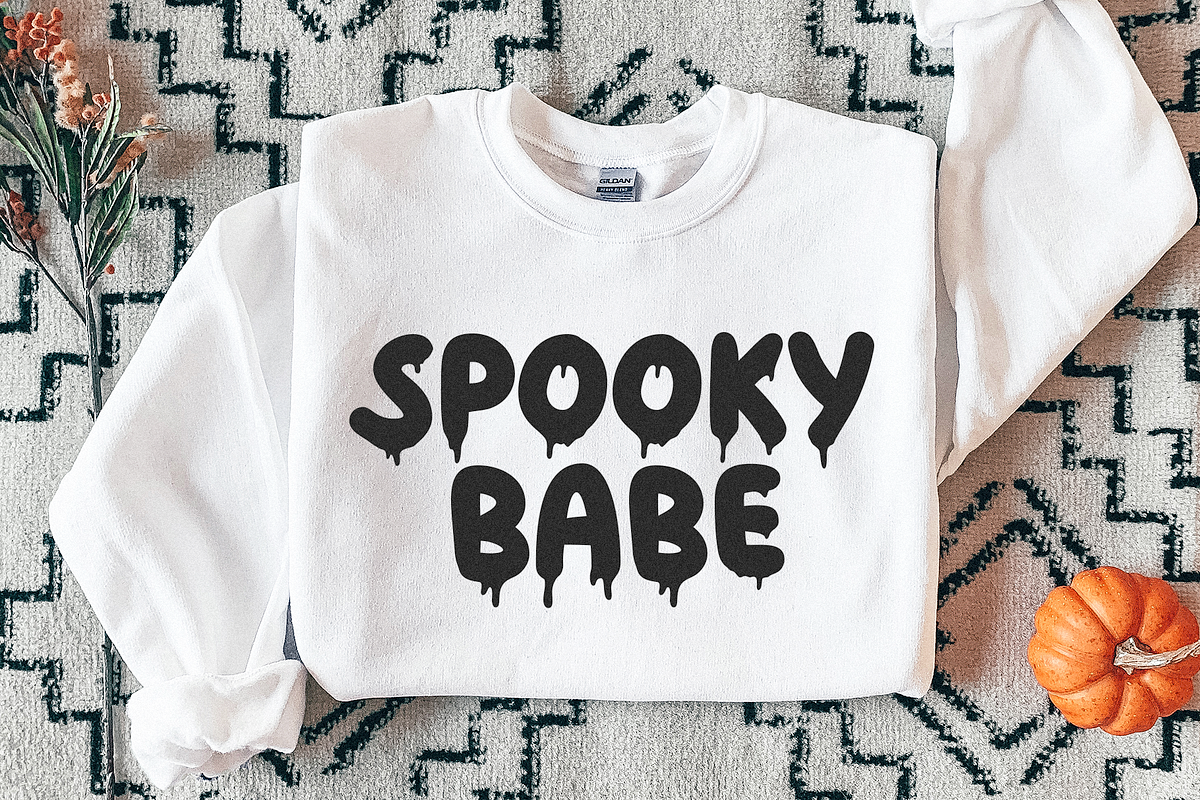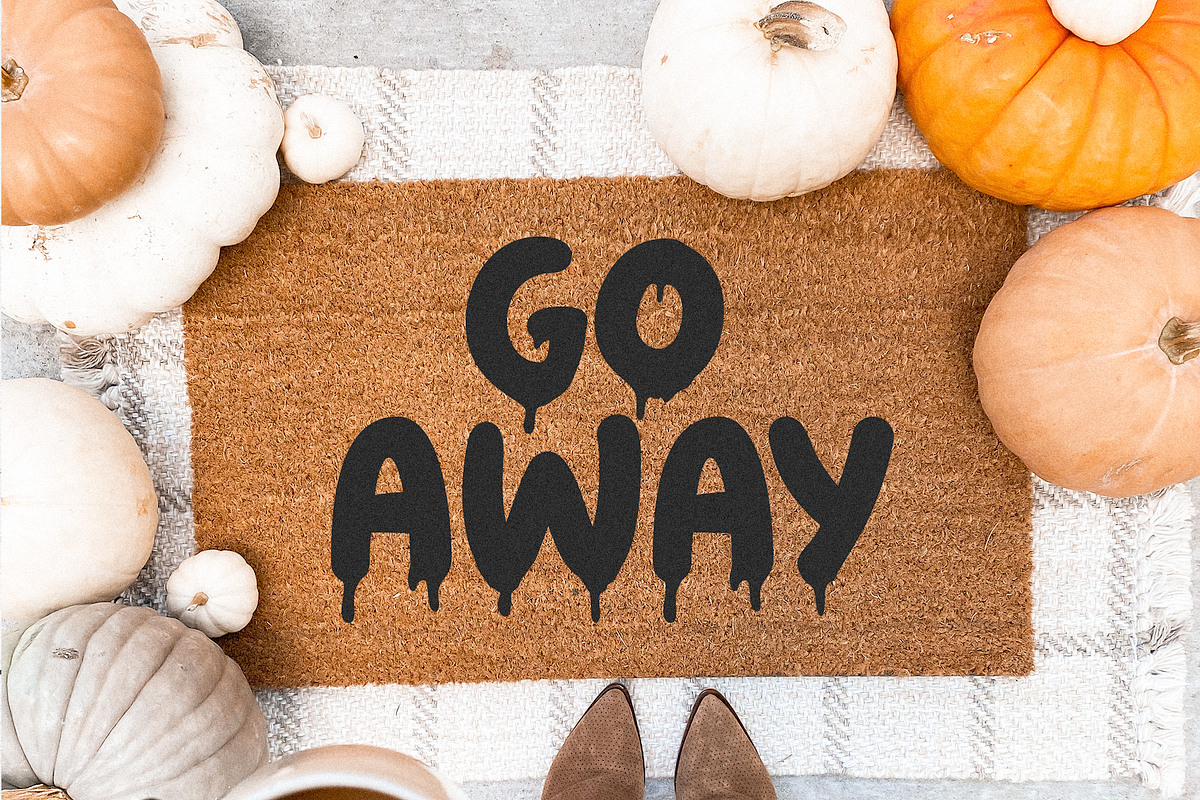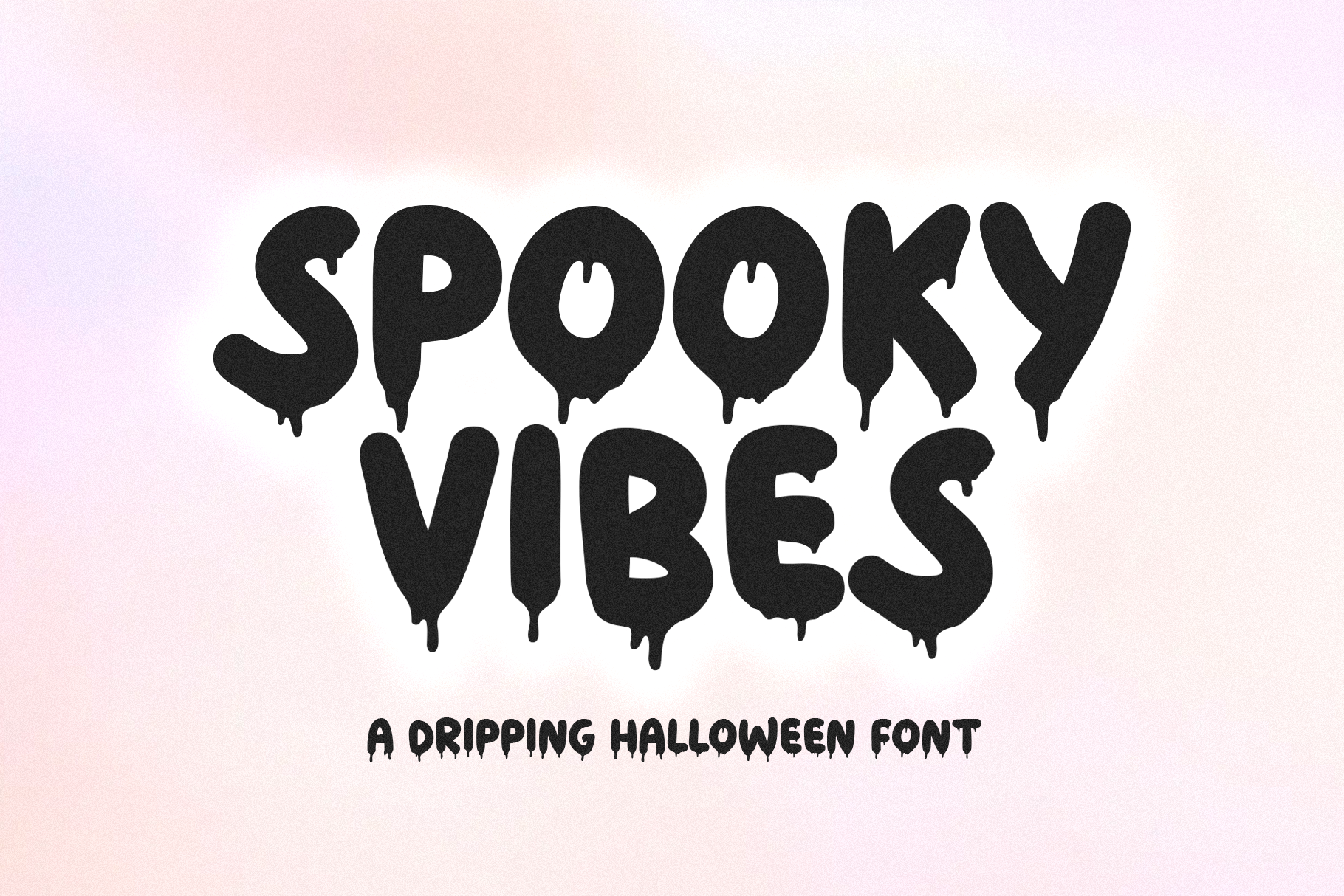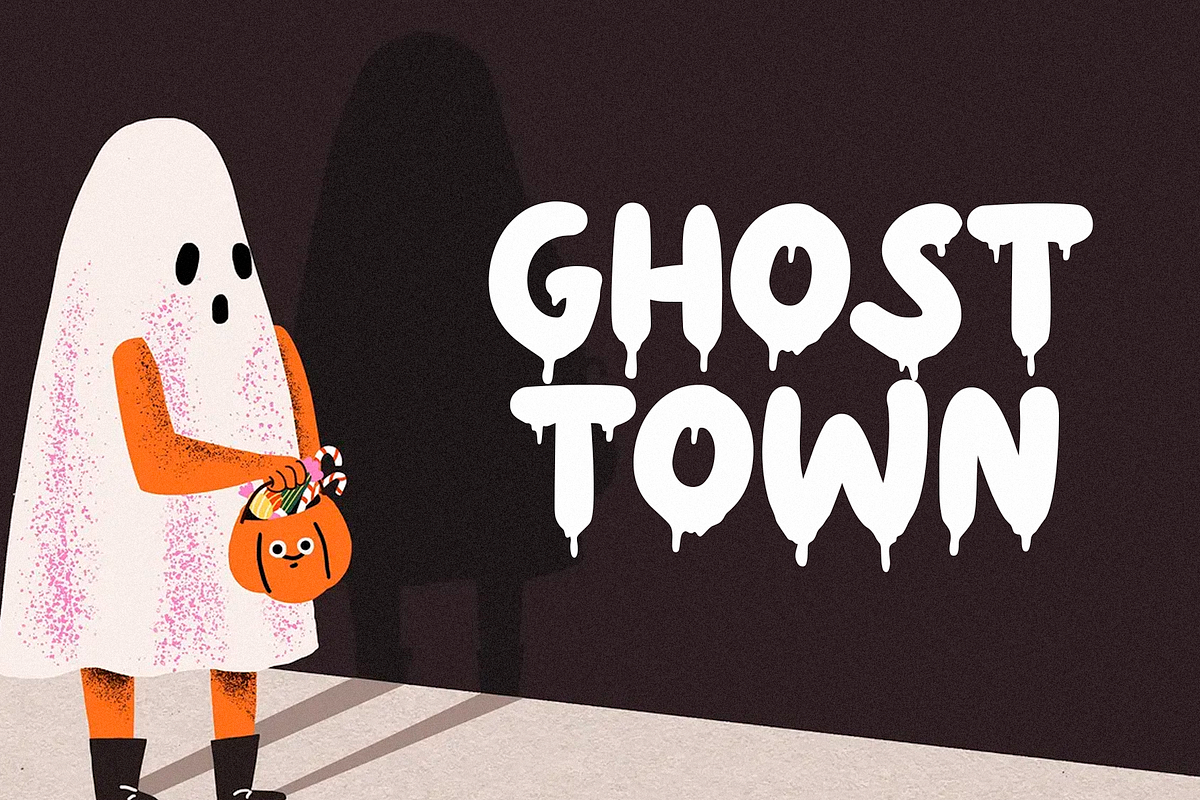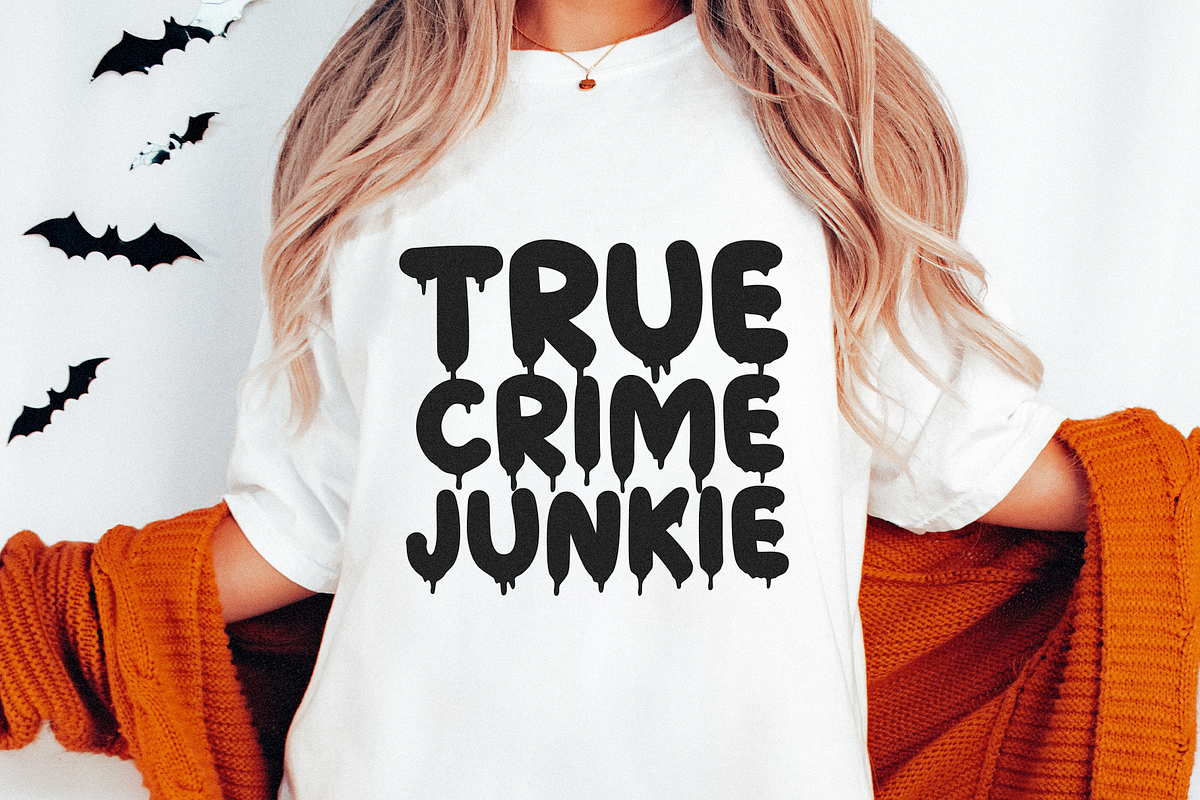
Spooky Vibes | Spooky Dripping Font
Spooky Vibes is a spooky halloween font with dripping letters.
This font is perfect for your svg designs, shirts, doormats, halloween decor, invitations, logos and more!